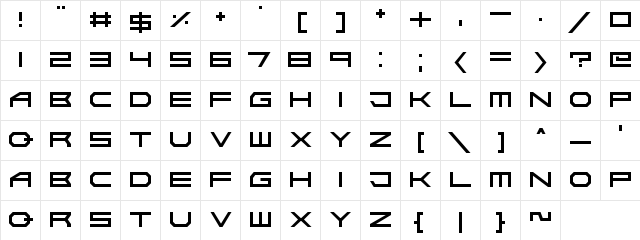
Absolute Zero Regular
| Designer | Darrell Flood |
Design Context for Absolute Zero Typeface
Absolute Zero is a composed and adaptable typeface that performs quietly and consistently across a wide range of design contexts.